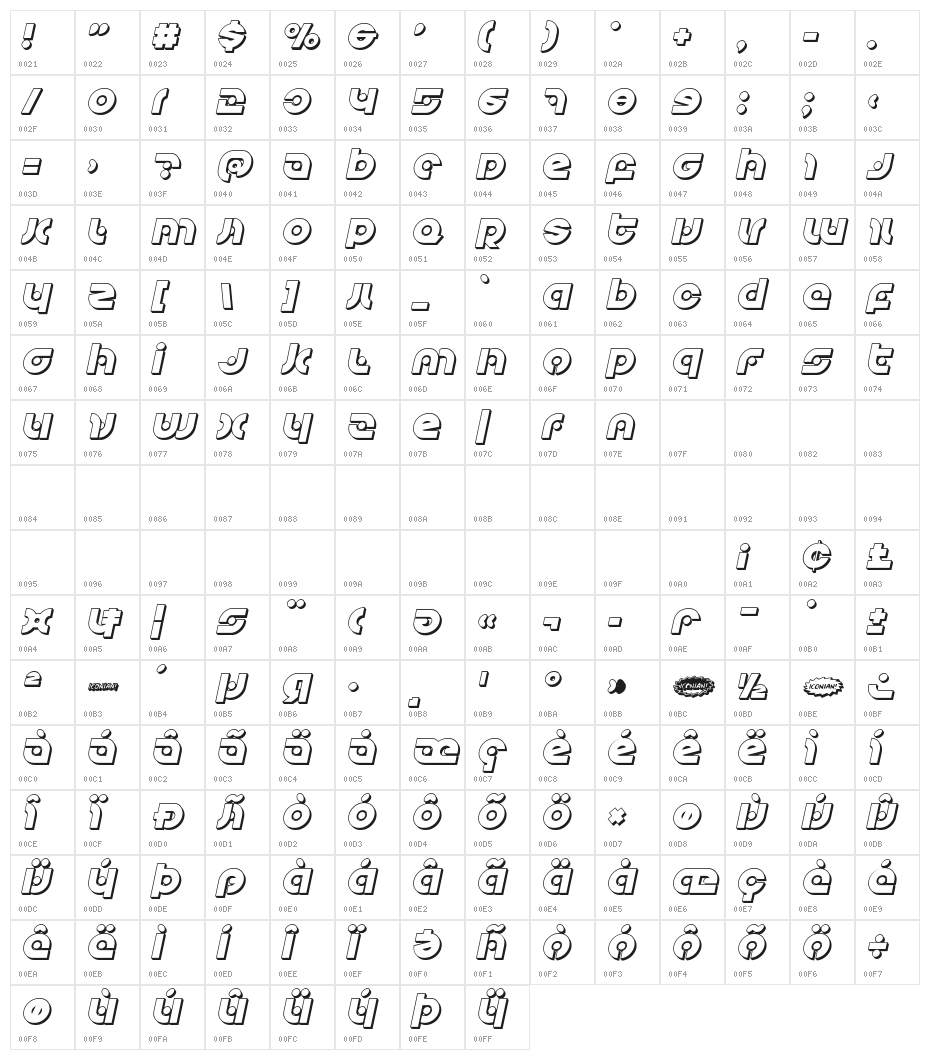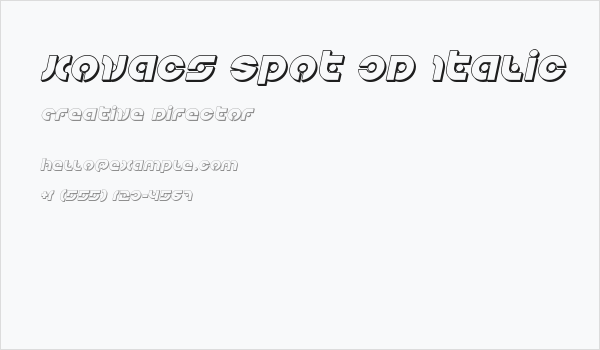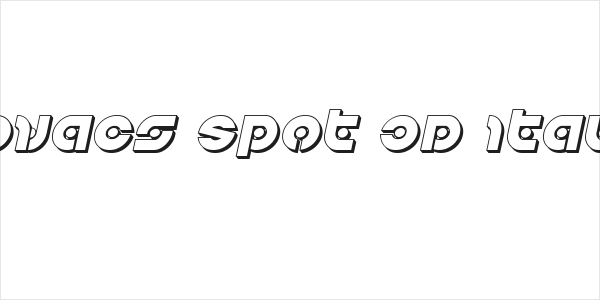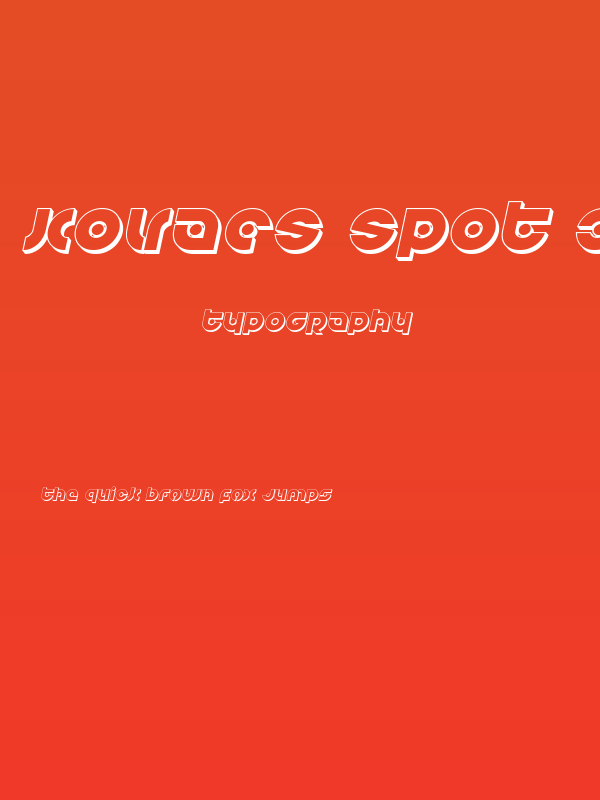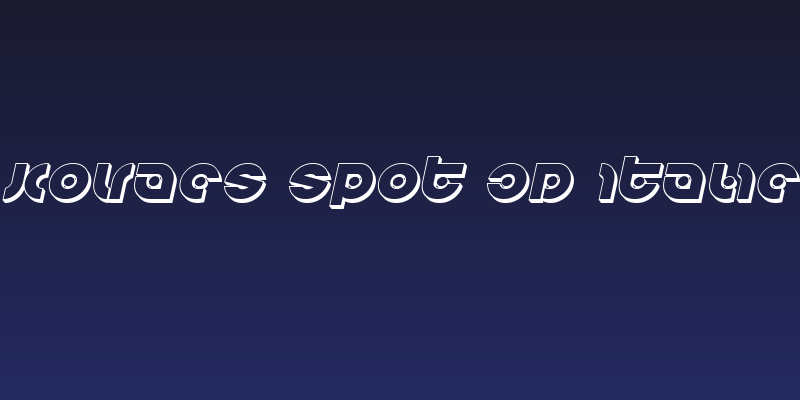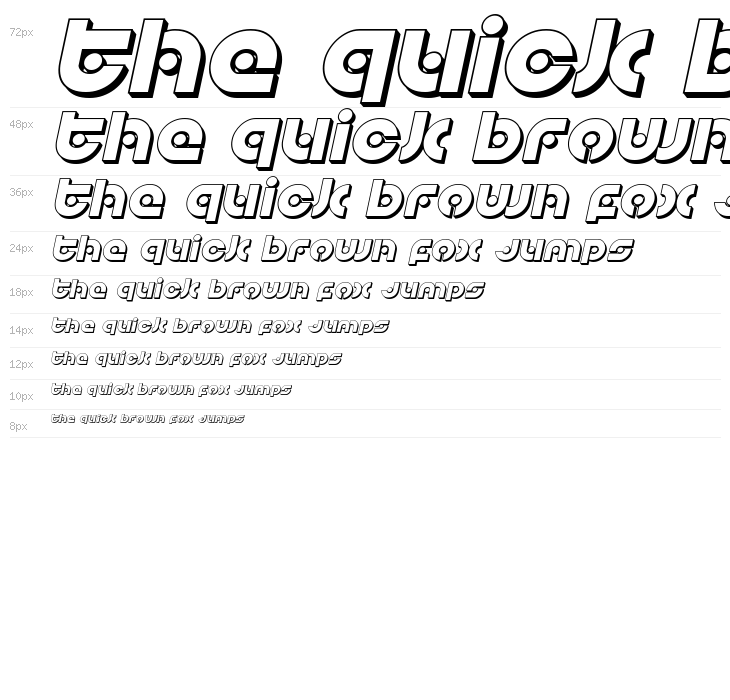
Kovacs Spot 3D Italic Font
Kovacs Spot 3D Italic Description
This font features a bold, three-dimensional appearance with a distinct italic slant, giving it a dynamic and futuristic look. The characters are outlined, creating a shadow effect that enhances the 3D illusion. The design is geometric, with rounded edges and consistent stroke widths, contributing to a modern and sleek aesthetic. The uppercase and lowercase letters maintain a uniform style, while the numerals and special characters are crafted to match the overall theme. This font is visually striking, making it ideal for attention-grabbing designs.